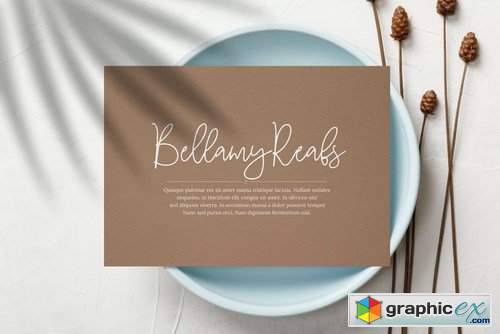
Business Card Arslant Script
Arslant Script is a fancy hand-lettering script font, this font is designed for fashion and wedding needed, this font is come with uppercase, lowercase, numerals, punctuations, and common ligatures.